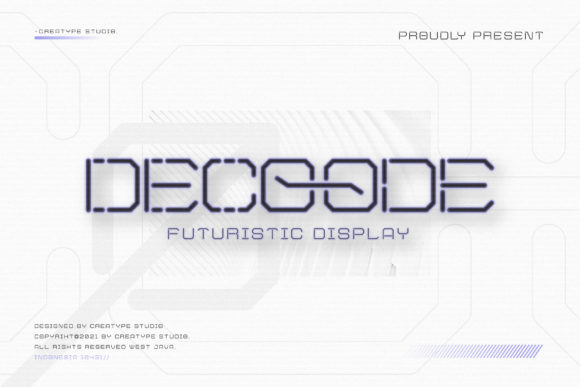
Embark on a typographic odyssey with Decoode, the futuristic display font that will propel your designs to the cutting edge. Experience the allure of a font meticulously crafted to capture the essence of technology, science fiction, and the boundless realm of science. Decoode is not just a font; it's a gateway to a universe where imagination and innovation converge.
Unleash your creativity and let Decoode ignite your designs with its captivating glyphs and swashes, effortlessly accessible thanks to PUA encoding. Dive into a font family that transcends the ordinary, providing an arsenal of options to suit your every design endeavor. Whether you're crafting logos, branding projects, or captivating social media posts, Decoode will elevate your work to new heights.
Picture your designs adorned with Decoode's sleek and sophisticated characters, commanding attention and leaving an indelible mark on your audience. Its crisp lines and sharp angles evoke a sense of modernity and progress, making it the perfect choice for product packaging, product designs, labels, and photography. With Decoode, your designs will radiate an aura of innovation and leave a lasting impression.
Envision your wedding invitations and stationery adorned with Decoode's timeless elegance, adding a touch of futuristic charm to your special day. Its versatility extends to watermarks, invitations, and stationery, allowing you to infuse your designs with a touch of the extraordinary.
Welcome to the world of Decoode, where typography meets the future. Its meticulously crafted characters are a testament to the boundless possibilities of design, propelling your projects into the realm of the extraordinary. Let Decoode be your creative companion, guiding you on a journey of innovation and excellence. Embrace the future of design today.